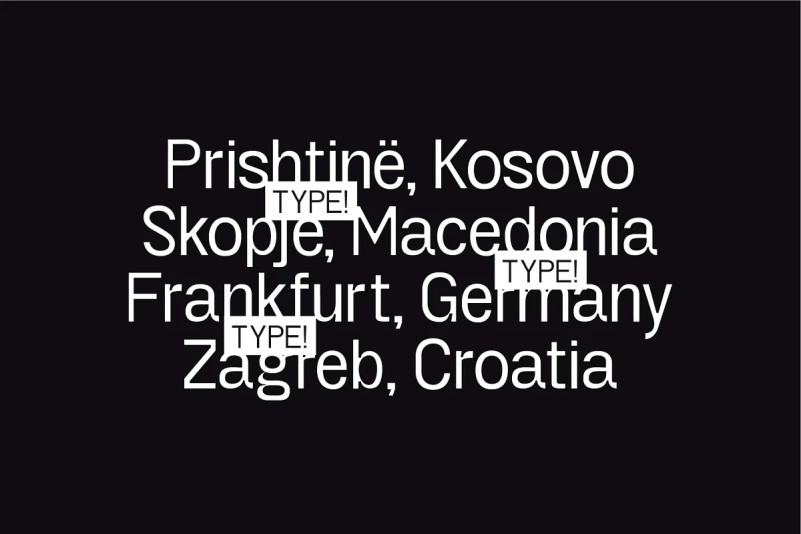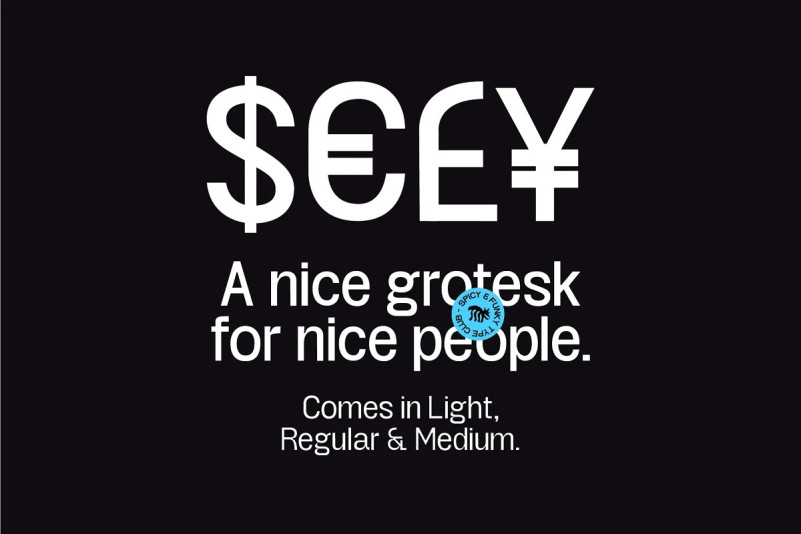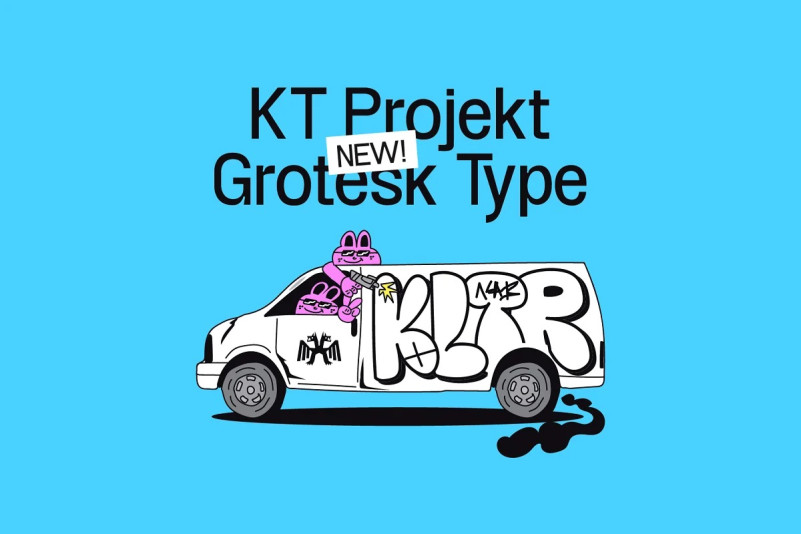
KT Projekt Font
KT Projekt Grotesk Sans Serif Font – A nice type for nice people. An old release retouched heavily & given a new vibe. Features some subtle but interesting details, as per usual the ink traps are present. Available in 3 weights & now features a few Western European accents.